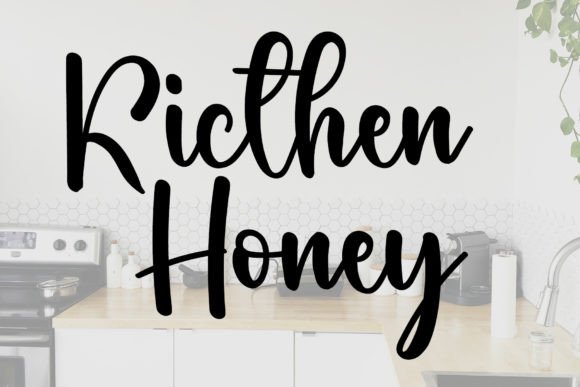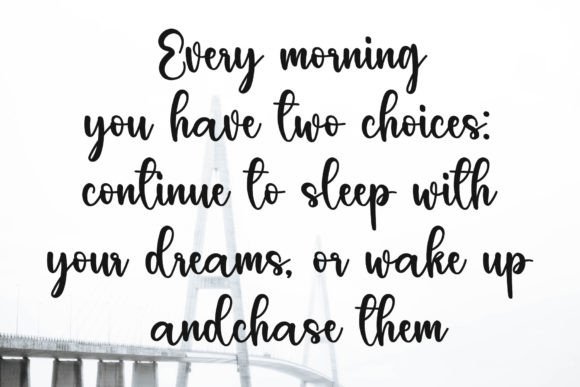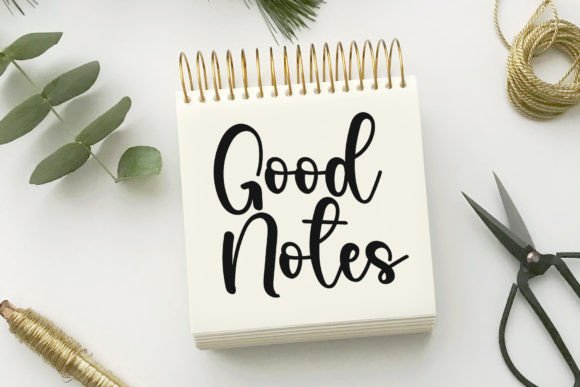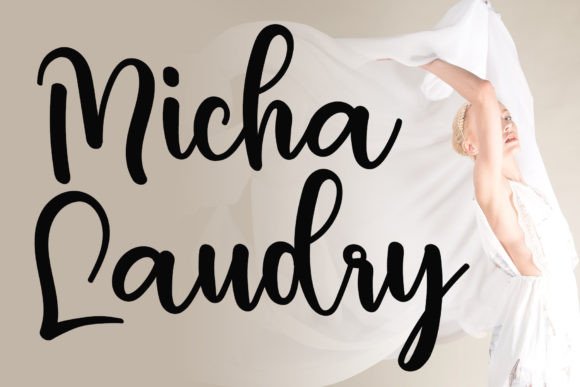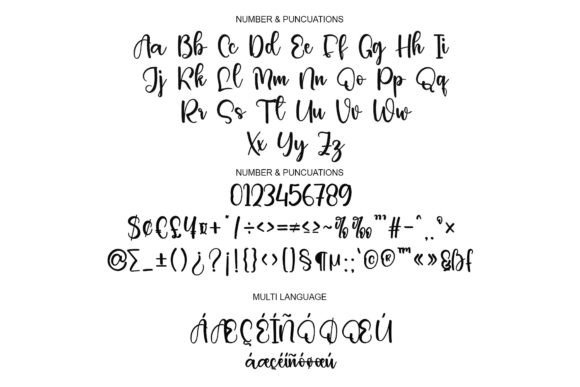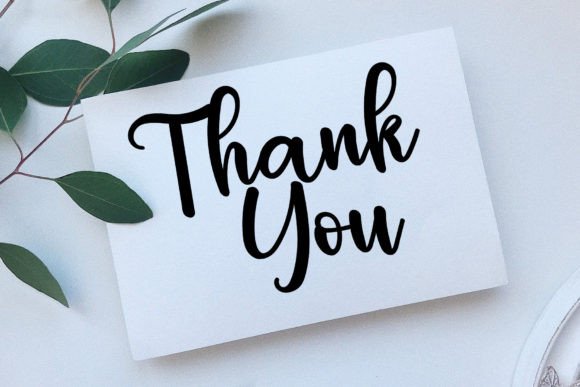
Hello Easter Font: Elevate Your Designs with Elegance and Flair
Are you on the hunt for a font that embodies the spirit of Easter with elegance and sophistication? Look no further than the Hello Easter Font. This delicate, elegant, and flowing handwritten font is designed to bring a touch of springtime charm to your designs, making it the perfect addition to your creative arsenal.
The Characteristics of Hello Easter Font
Hello Easter Font boasts beautiful and well-balanced characters that make it incredibly versatile. Its elegant and flowing script is reminiscent of traditional Easter cards and decorations, but with a modern twist that ensures it will stand out in any design. Whether you’re working on Easter-themed projects, spring-inspired crafts, or simply want to add a touch of whimsy to your designs, Hello Easter Font is sure to impress.
Why Choose Hello Easter Font?
- Versatility: Hello Easter Font’s balanced and elegant design makes it suitable for a wide range of projects, from Easter cards and decorations to spring-themed crafts and beyond.
- Elegance: The font’s delicate and flowing script adds a touch of sophistication to any design, making it perfect for designers and crafters who want to create high-end looking projects.
- Creativity: With Hello Easter Font, you can bring your most creative ideas to life. Its unique and charming design ensures that your projects will stand out from the crowd.
Using Hello Easter Font in Your Designs
- Easter cards and invitations
- Spring-themed crafts and decorations
Tips for Getting the Most Out of Hello Easter Font
To make the most of Hello Easter Font, try pairing it with complementary fonts and design elements. Here are a few tips to get you started:
- Pair with bold fonts: Hello Easter Font’s delicate design pairs beautifully with bold, sans-serif fonts. Try using it in combination with a font like Arial Black or Impact to create visually appealing headings and titles.
- Add floral elements: Easter and spring are all about flowers and greenery. Consider adding floral elements, such as illustrations or photographs, to your designs to complement the font’s elegant script.
- Experiment with colors: Hello Easter Font looks beautiful in a variety of colors, from soft pastels to bold brights. Don’t be afraid to experiment with different color schemes to find the one that works best for your design.
| Author | Protype Studio |
Hello Easter Font is a beautiful and elegant handwritten font that’s perfect for designers and crafters who want to add a touch of springtime charm to their designs. With its versatile and balanced design, it’s suitable for a wide range of projects, from Easter cards and decorations to spring-themed crafts and beyond. Download Hello Easter Font today and bring your most creative ideas to life!